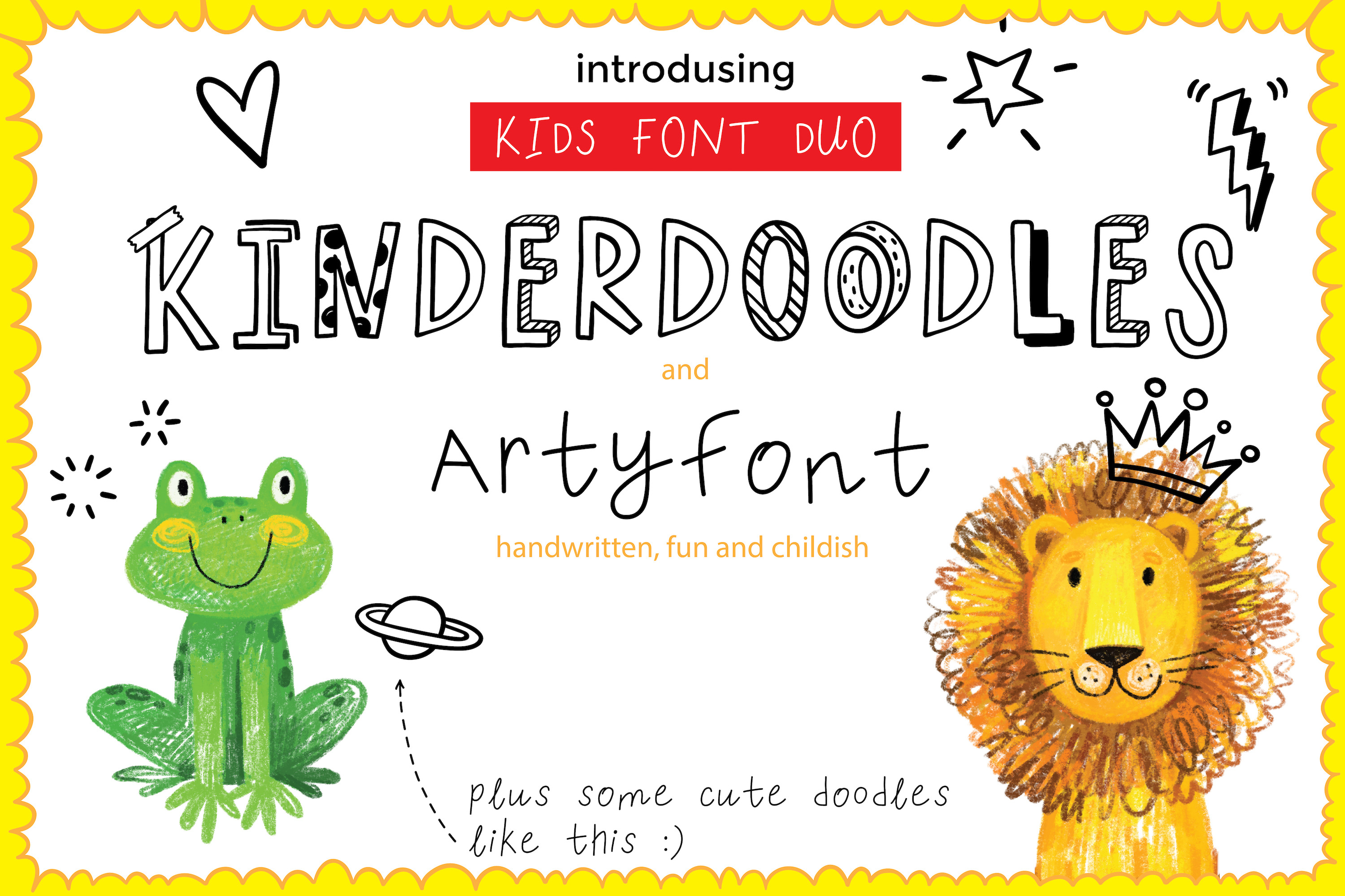
Kids font duo KINDERDOODLES Artyfont
Say HI to new font DUO! Artyfont and KINDERDOODLES :)
A cute handwritten childish font with bonus doodles!
In this funny set you'll find:
-Artyfont includes the Upper and Lowercase letters, numbers, punctuation, symbols and double letters. (English Language)
-KINDERDOODLES includes Uppercase letters , double O letter (English Language)